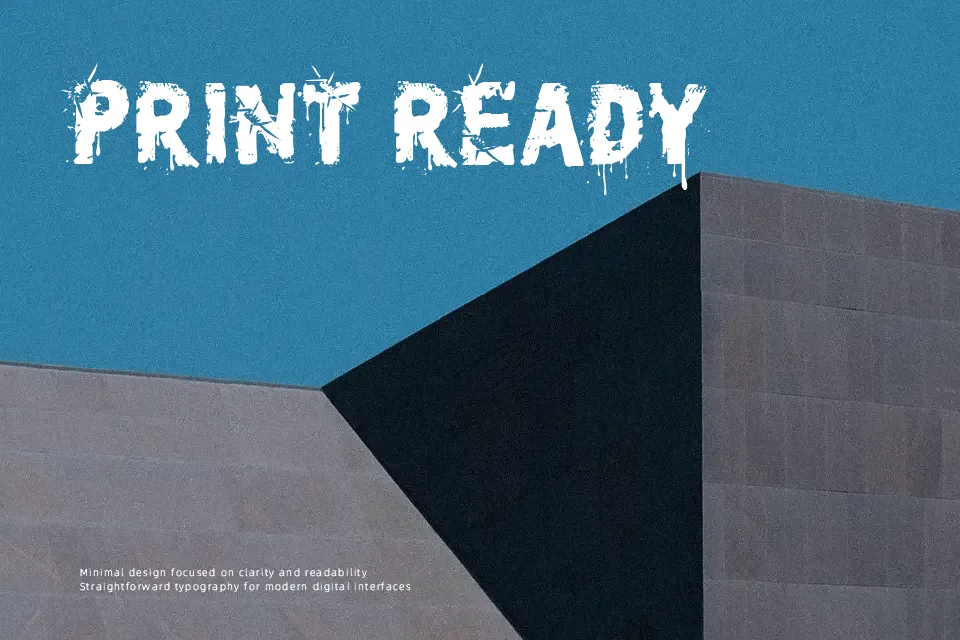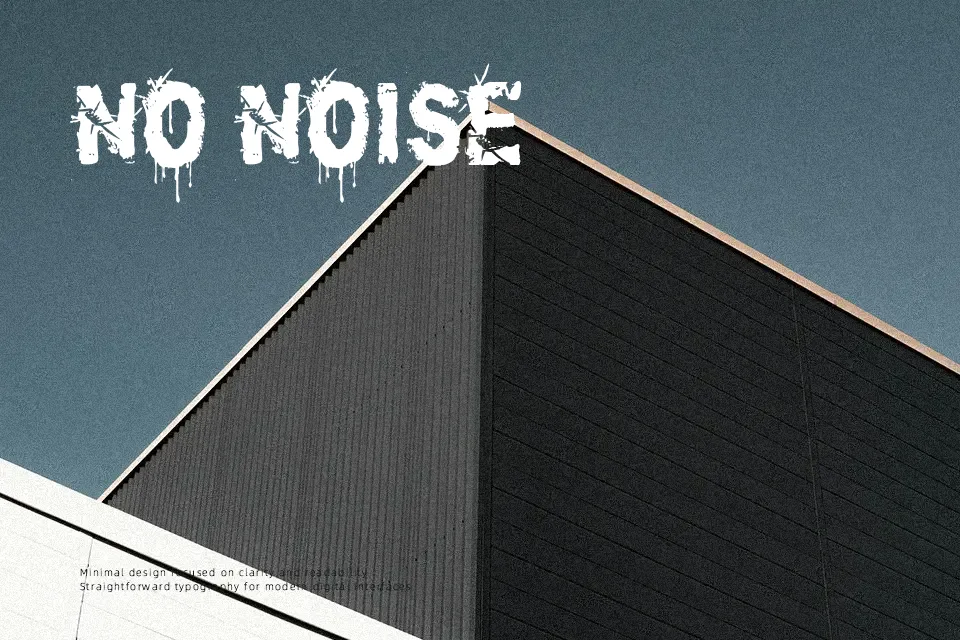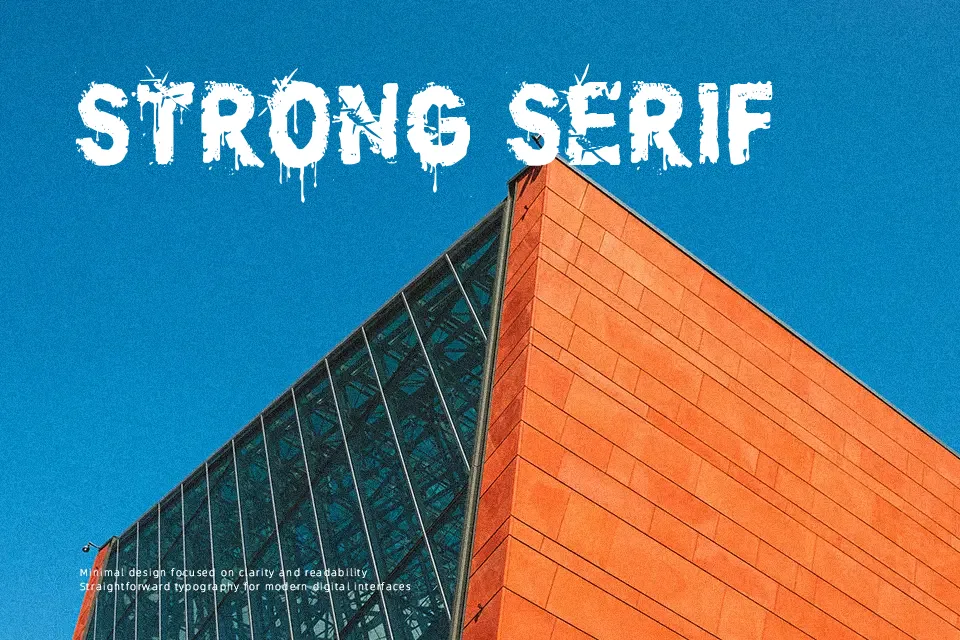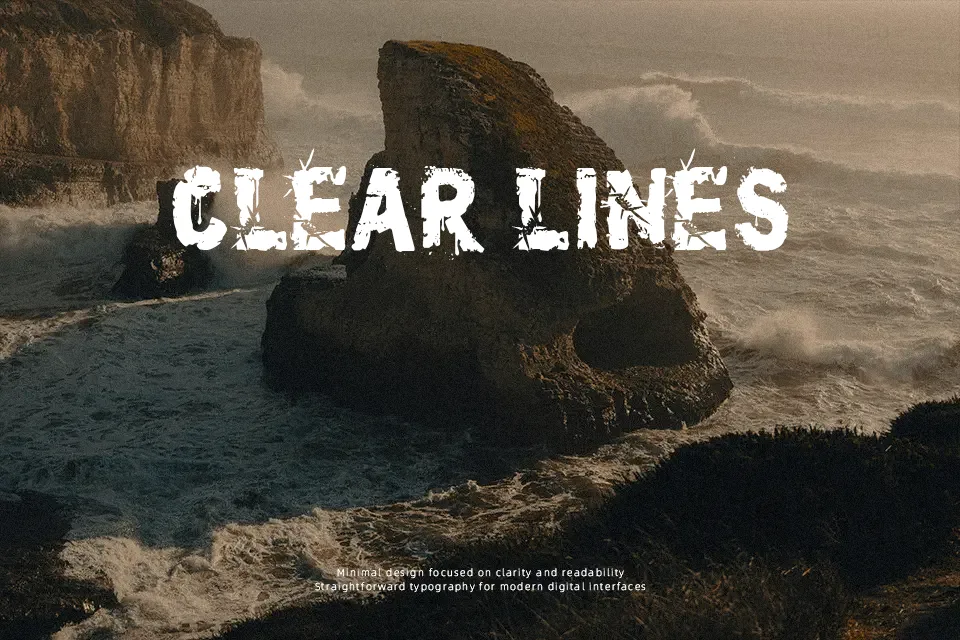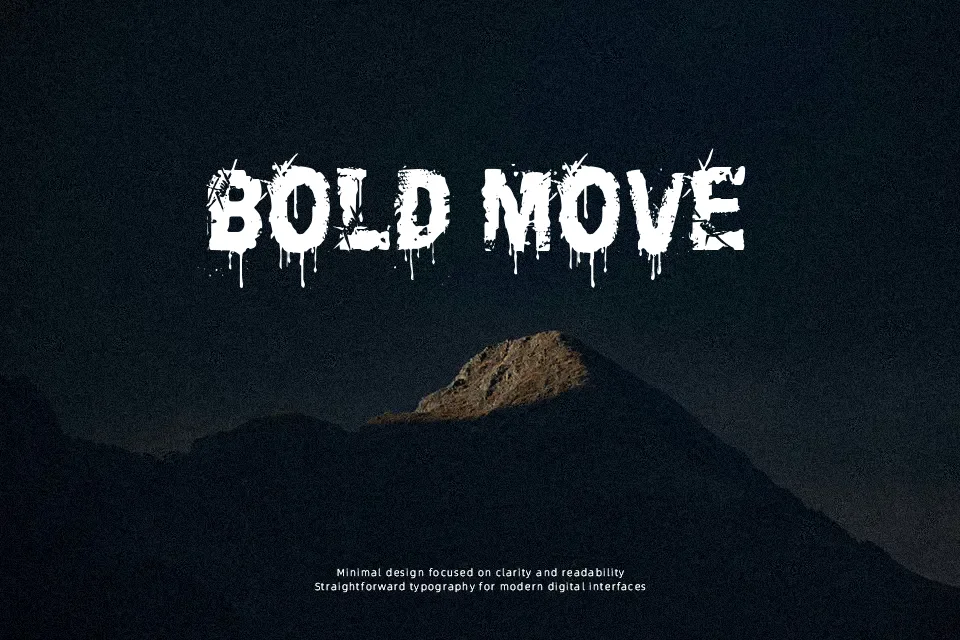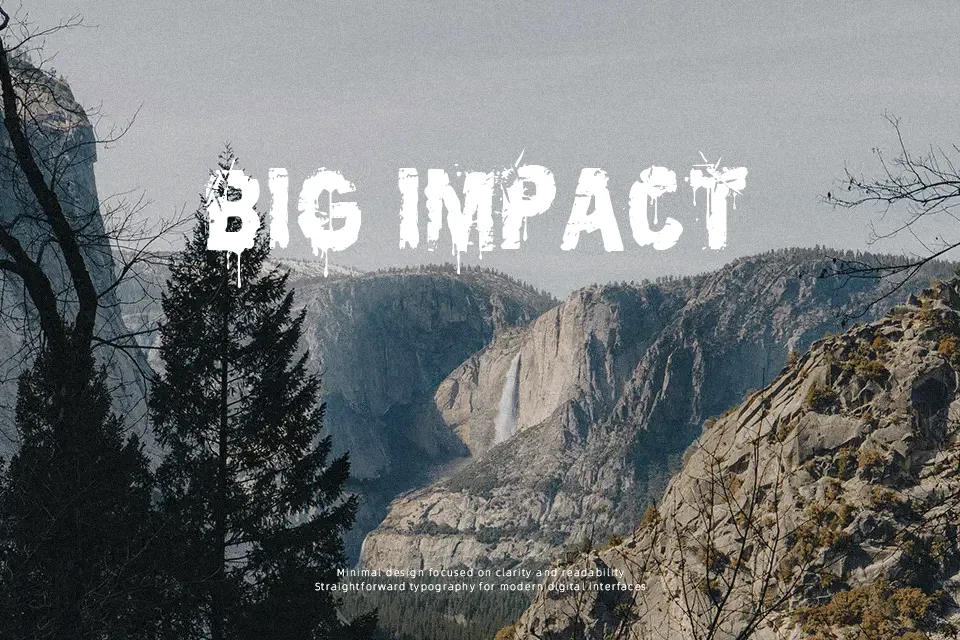
CF Politicians Killers Font
Defined by its rugged stencil architecture, CF Politicians Killers Font delivers an intensely weathered aesthetic shaped by thick rectangular strokes and irregular splattered contours. The letterforms feature condensed proportions and tight spacing, creating an imposing typographic presence that commands attention across large-scale formats. Solid vertical stems contrast against fractured horizontal bridges, giving each character a raw, handmade street texture. This heavy decorative treatment ensures exceptional punch on Halloween event banners, heavy metal merchandise, and cinematic thriller titles. However, the abrasive distressing and dense silhouettes significantly reduce legibility at small point sizes, making the typeface poorly suited for continuous reading or editorial paragraphs.
– horror movie title cards
– heavy metal band merchandise
– halloween festival posters
– escape room signage
– body text in books
– mobile application interfaces
– corporate financial documents
– small product ingredient labels
Perfect for film, halloween, and headline, with a dark and decorative style.